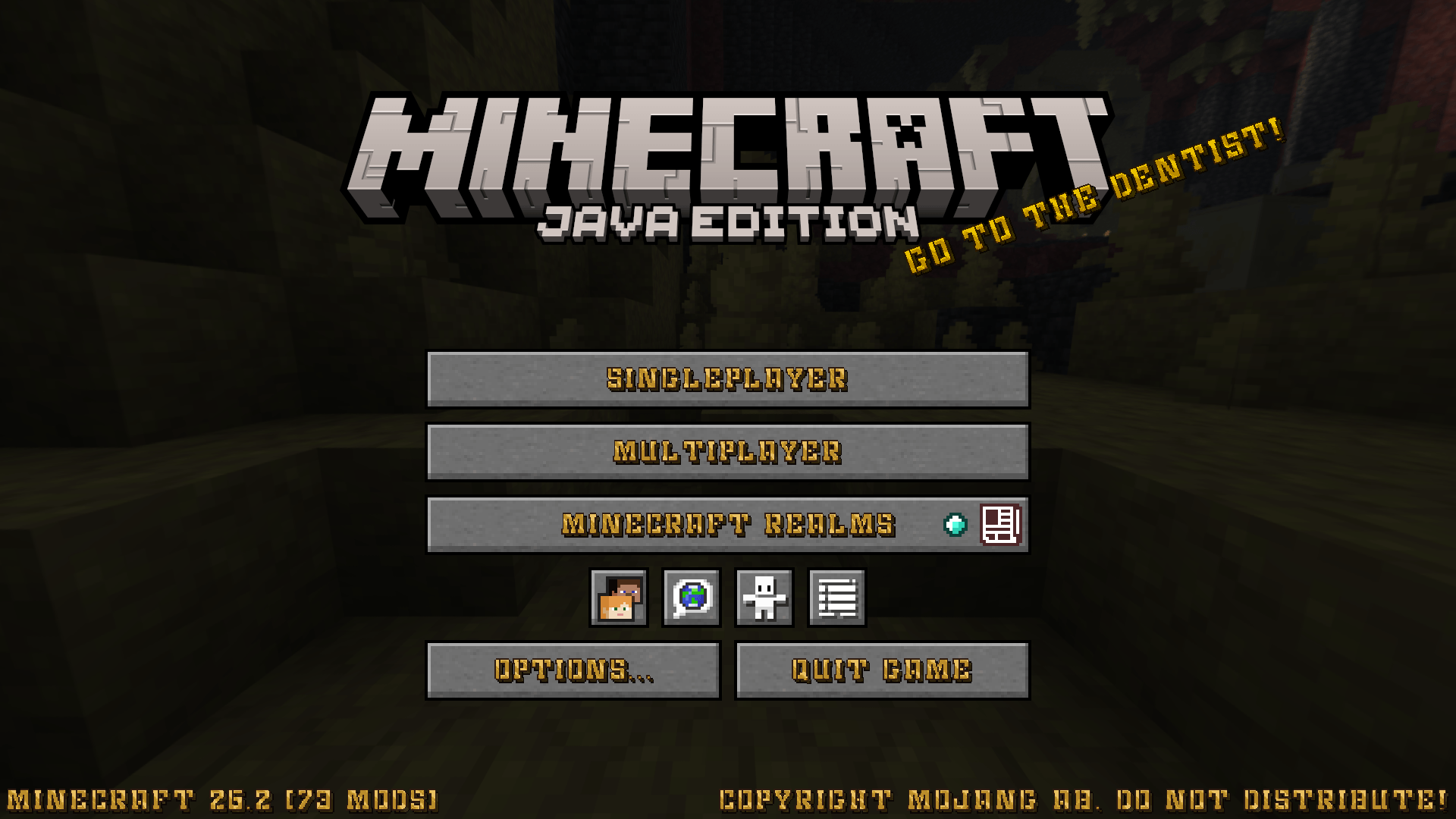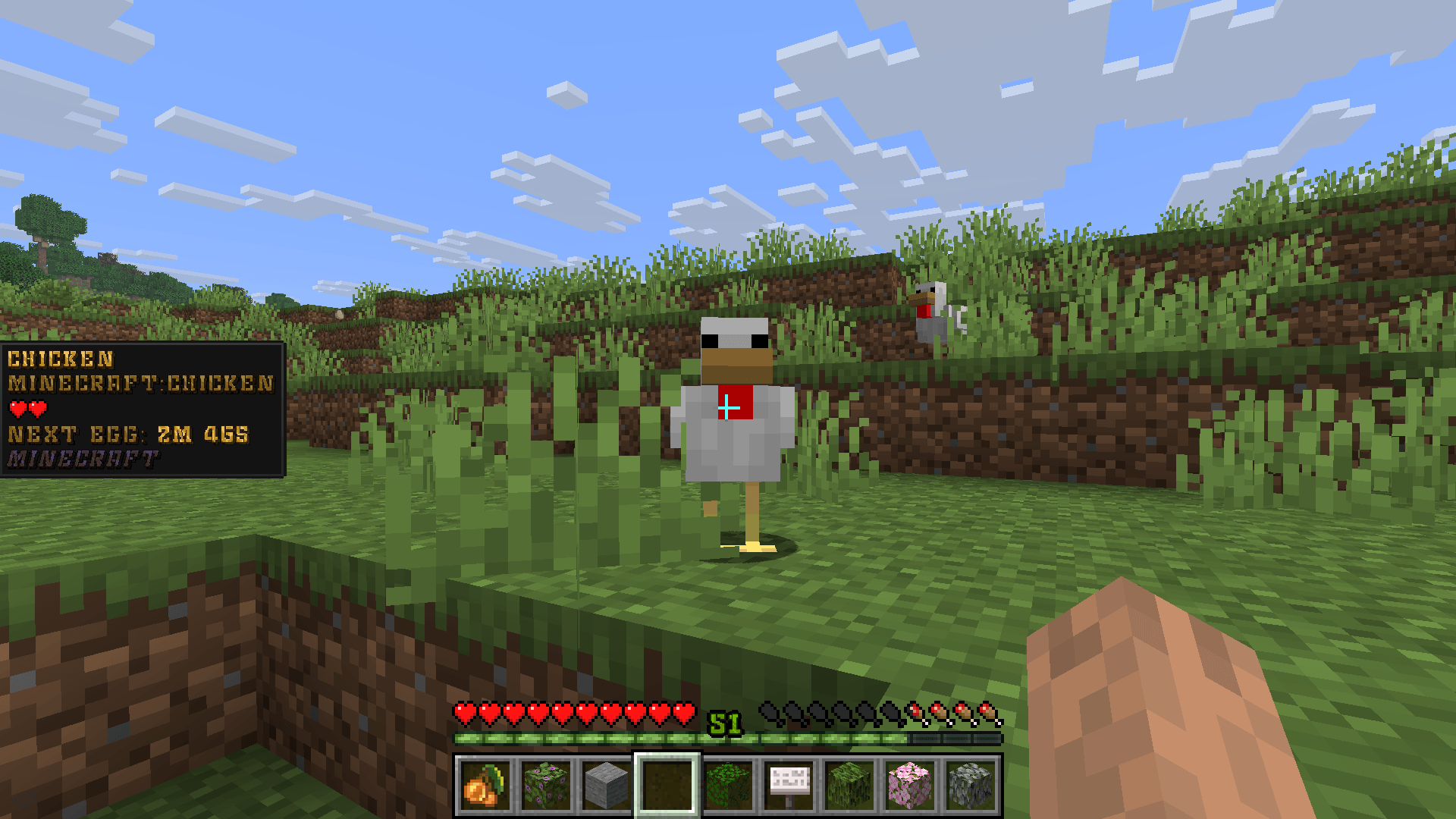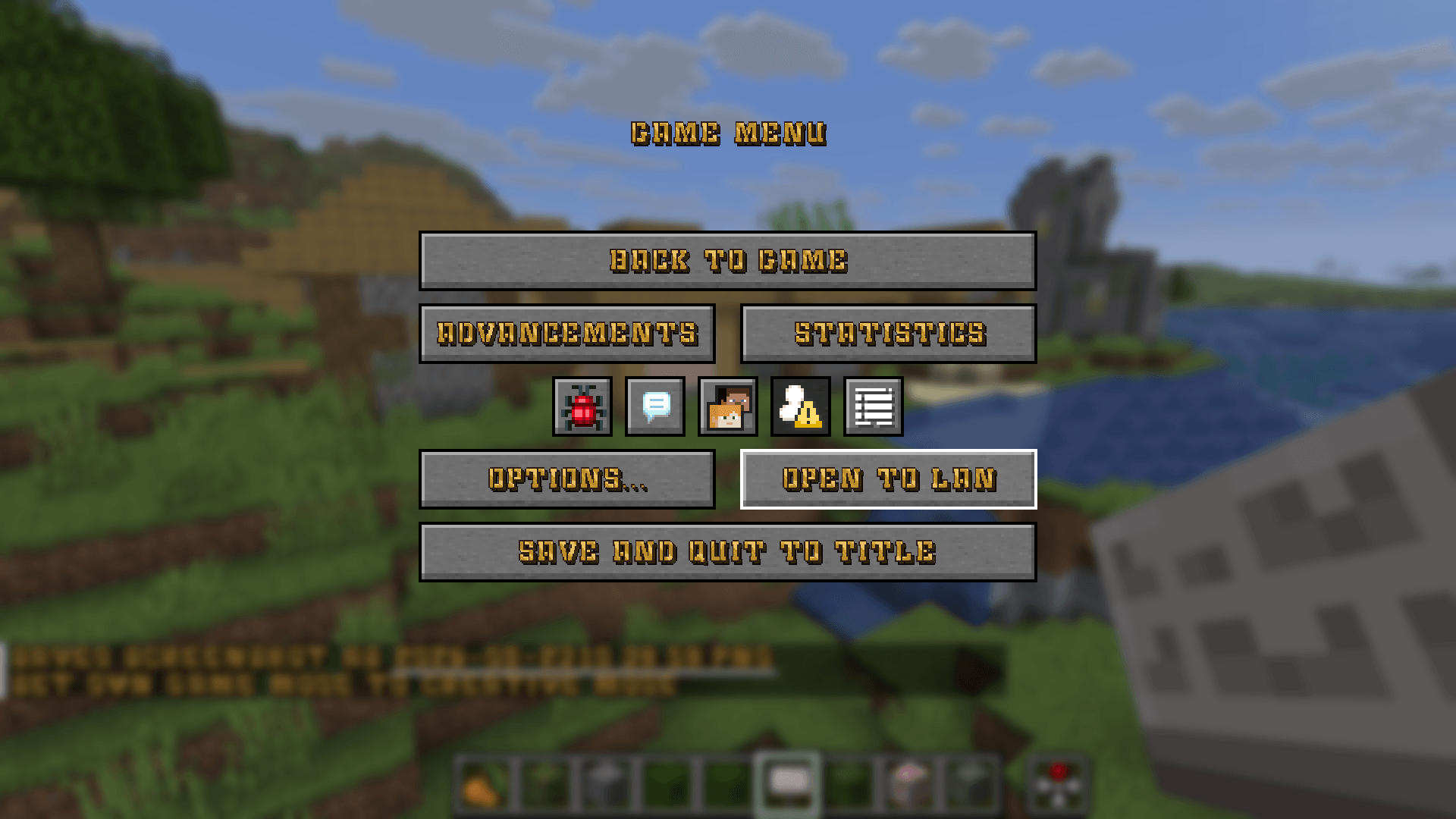
Pixect Font
A golden capital font based on one of Pixel Perfection's fonts.
This font pack adds a golen, capital-only font based on one of Pixel Perfection's fonts to Vanilla Minecraft. Originally and partially created by XSSheep, I expanded on it to deliver a full font pack for Vanilla.
This is a somewhat large font with reflection layers on its golden characters reminiscent of old title styles.